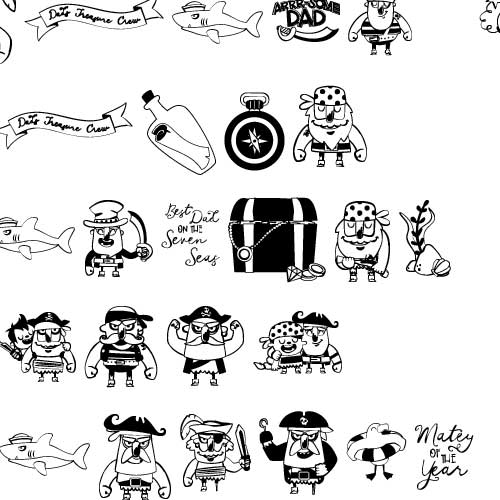
DB Ahoy Dad - DB
This fun doodlebat font features adorable pirates, dad pirate puns and imagery. Perfect for Father's Day, pirate lovers, parties, gifts, planner stickers, classrooms, scrap book pages and more!